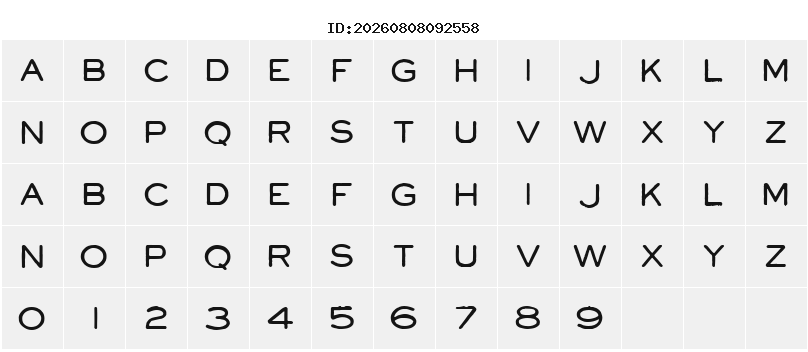
Powell and Geary Preview
• Font Name: Powell and Geary
• Designer: S. John Ross
• Description: A simple stressed font built for a map-labeling project.
About Powell and Geary.ttf
Powell and Geary.ttf is a modern, elegant sans-serif font designed for ultimate readability and visual harmony. Perfect for branding, headlines, web design, and print materials.